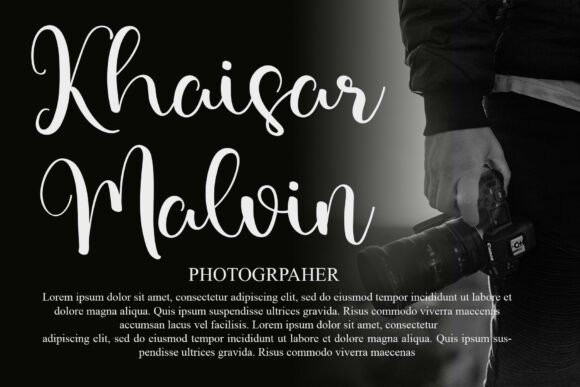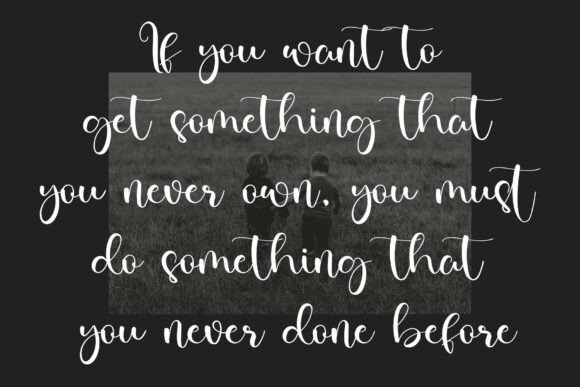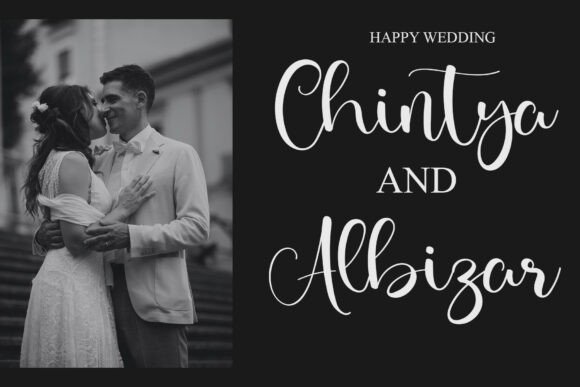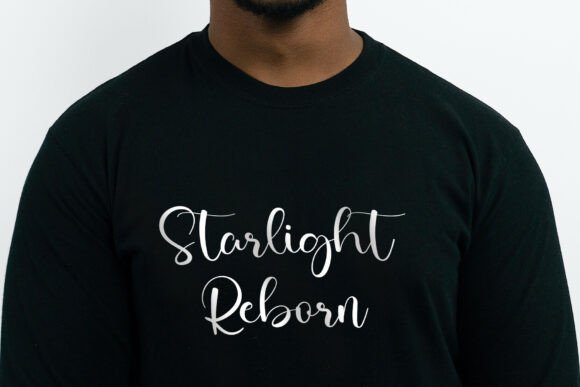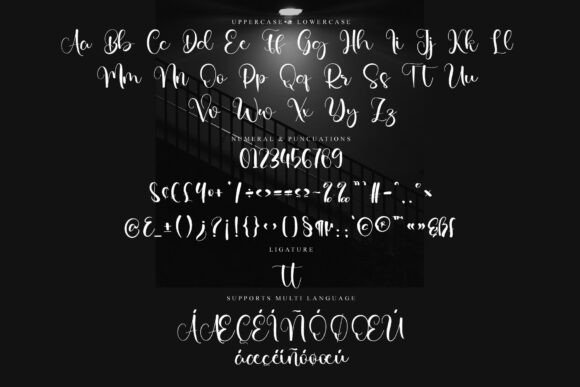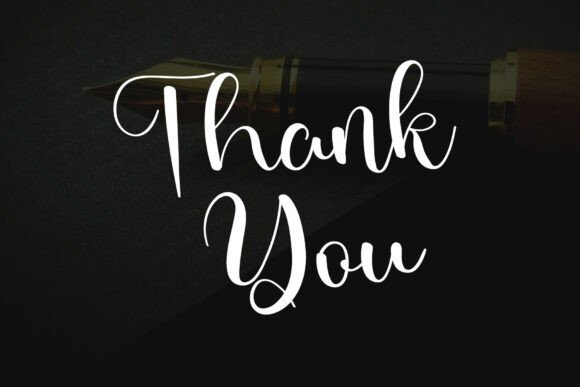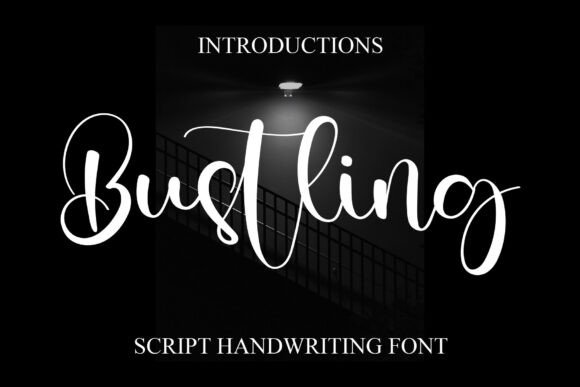
Bustling Font: Elevate Your Designs with this Stylish Script Font
Are you looking for a font that adds a touch of elegance and sophistication to your designs? Look no further than Bustling Font, a stylish and dainty script font that’s perfect for a wide range of projects. In this article, we’ll take a closer look at Bustling Font, its features, and how you can use it to take your designs to the next level.
What is Bustling Font?
Bustling Font is a beautiful script font that’s designed to add a touch of luxury and refinement to your designs. Its stylish and dainty lettering makes it perfect for projects that require a high level of elegance and sophistication. Whether you’re working on a logo, branding, labels, photography, watermarks, or any other project that needs a beautiful script style, Bustling Font is an excellent choice.
Key Features of Bustling Font
So, what makes Bustling Font so special? Here are some of its key features:
- Stylish and dainty lettering: Bustling Font features beautiful, flowing lettering that’s perfect for adding a touch of elegance to your designs.
- Script style: This font has a classic script style that’s perfect for projects that require a high level of sophistication.
- Versatile: Bustling Font is suitable for a wide range of projects, from logos and branding to labels, photography, and more.
- Easy to read: Despite its elegant style, Bustling Font is easy to read, making it perfect for use in body text as well as headings.
How to Use Bustling Font in Your Designs
Now that we’ve covered the features of Bustling Font, let’s take a look at how you can use it in your designs. Here are some ideas to get you started:
- Logos and branding: Use Bustling Font to create a stylish and sophisticated logo that sets your brand apart.
- Labels and packaging: Add a touch of elegance to your labels and packaging with Bustling Font.
- Photography: Use Bustling Font to add a beautiful watermark to your photos or create stylish photo captions.
- Special events: Bustling Font is perfect for creating stylish invitations, programs, and other materials for special events like weddings, galas, and more.
Tips for Getting the Most out of Bustling Font
Here are some tips for getting the most out of Bustling Font:
- Experiment with different sizes and colors: Bustling Font looks great in a variety of sizes and colors, so don’t be afraid to experiment to find the perfect look for your design.
- Pair it with other fonts: Bustling Font pairs well with a variety of other fonts, so try combining it with a bold font for headings or a clean font for body text.
- Use it consistently: To create a cohesive look, use Bustling Font consistently throughout your design.
In conclusion, Bustling Font is a stylish and dainty script font that’s perfect for adding a touch of elegance and sophistication to your designs. Its versatility, readability, and beautiful lettering make it an excellent choice for a wide range of projects. Whether you’re a designer, crafter, or DIY enthusiast, Bustling Font is a great addition to your font collection.